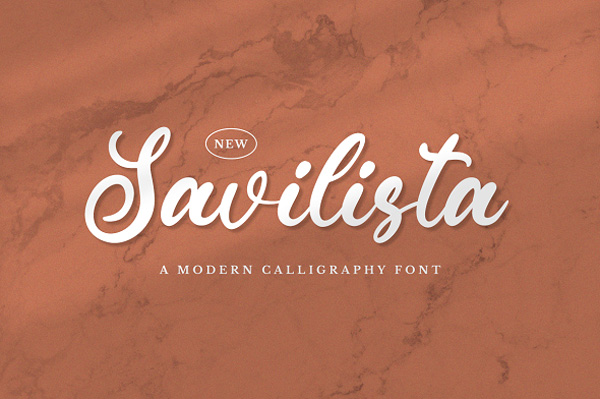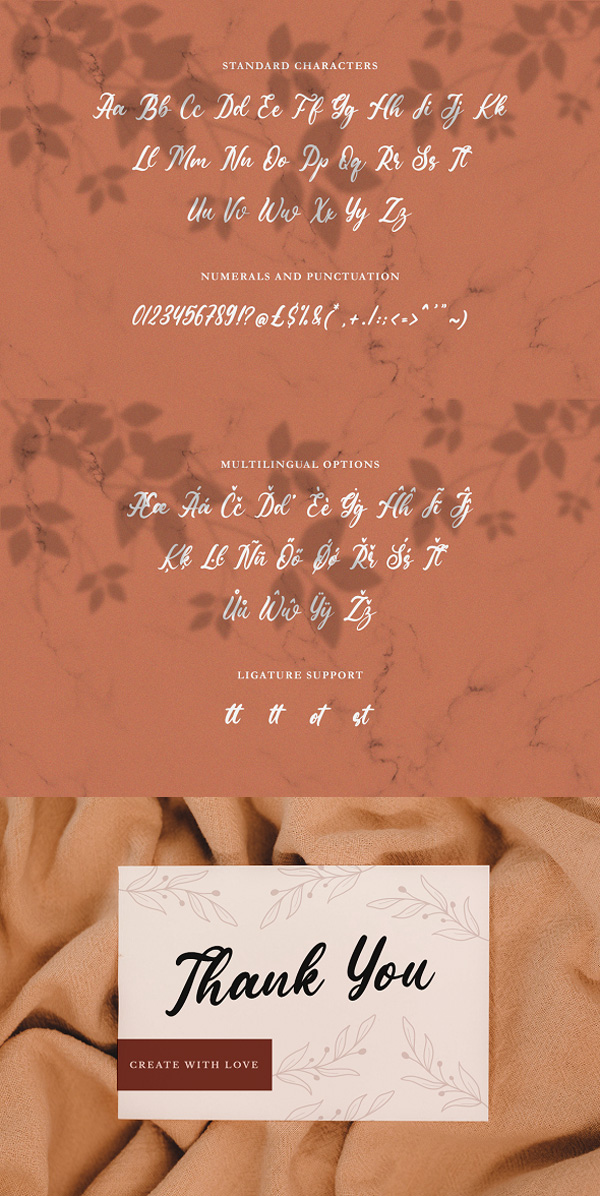
Savilista Elegant Font
Here in this post, you can Free Download Graphicriver – Savilista Elegant Font 34138219 compress files through the below link. Savilista is a beautiful and elegant handwritten font. Delicate and well balanced, this font will brighten up each of your designs. You Can Also Download Marney Holland Stylish Font Duo.
Savilista Elegant Font